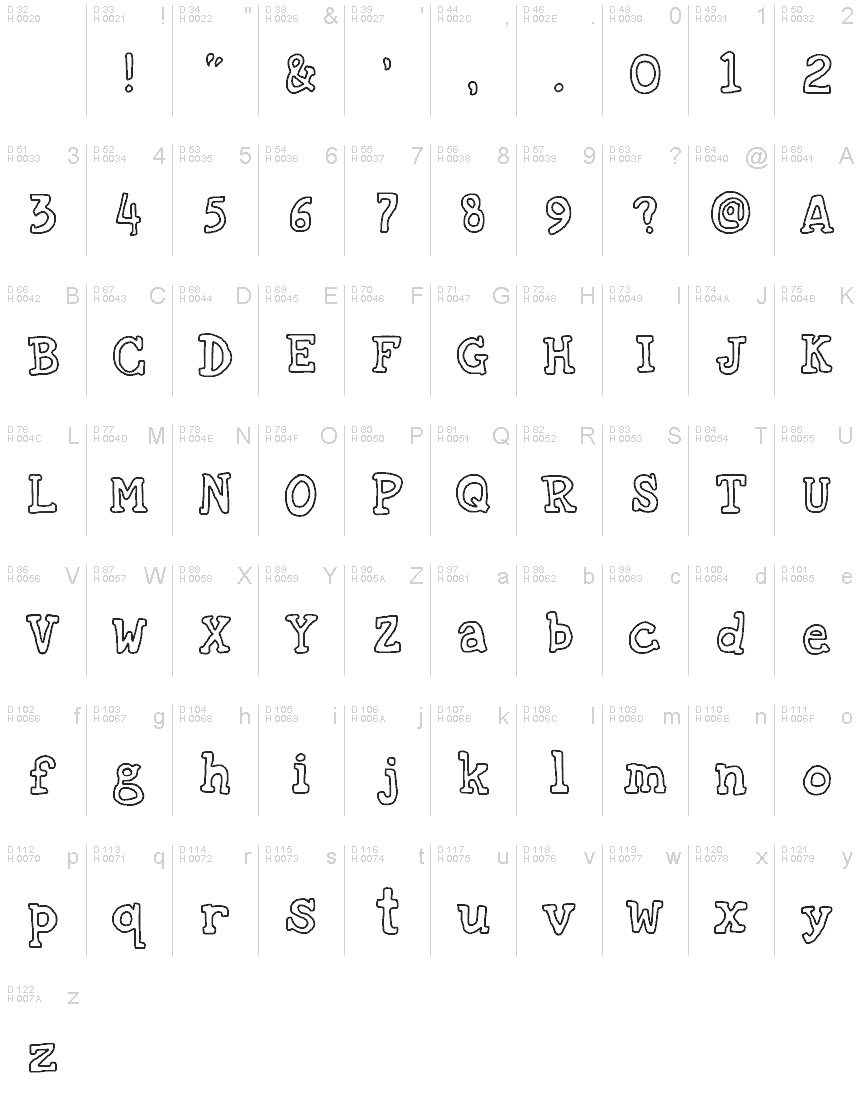
oldies cartoon
"Oldies Cartoon" is a delightfully whimsical font that evokes the nostalgic charm of vintage cartoons. Designed by Geronimo Font Studios, this display font boasts a bold, outlined aesthetic that instantly grabs attention. The playful, cartoon-inspired letterforms exude a sense of playfulness and lightheartedness, making it an ideal choice for a wide range of design projects, from playful branding and packaging to attention-grabbing headlines and signage.
Its distinct character and versatility make "Oldies Cartoon" a compelling option for designers seeking to infuse their work with a touch of retro-inspired personality and character.